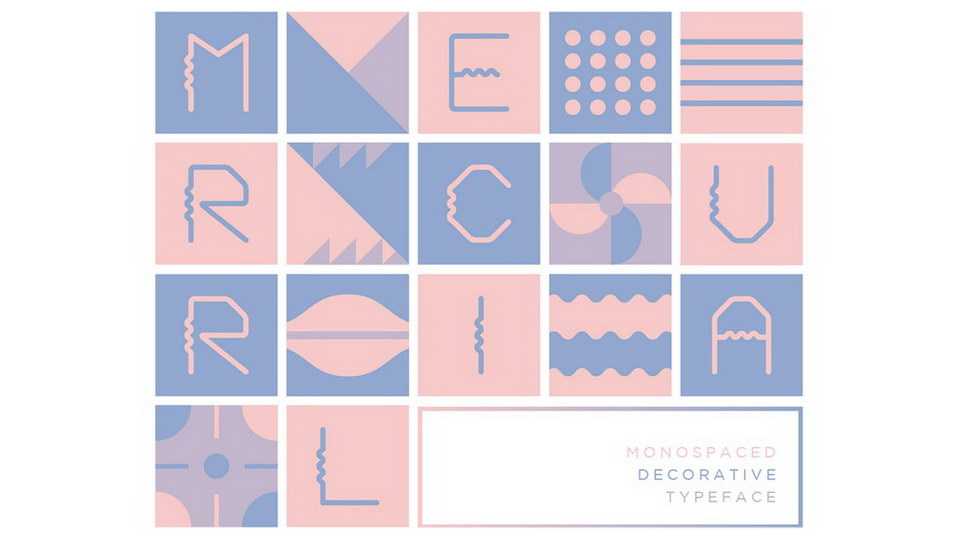
Download Mercurial font, a monospaced decorative typeface based on contradiction. Alternating wavy and straight lines, it embodies the constant changes implied in the adjective meaning.
Designer: Santino Calvo